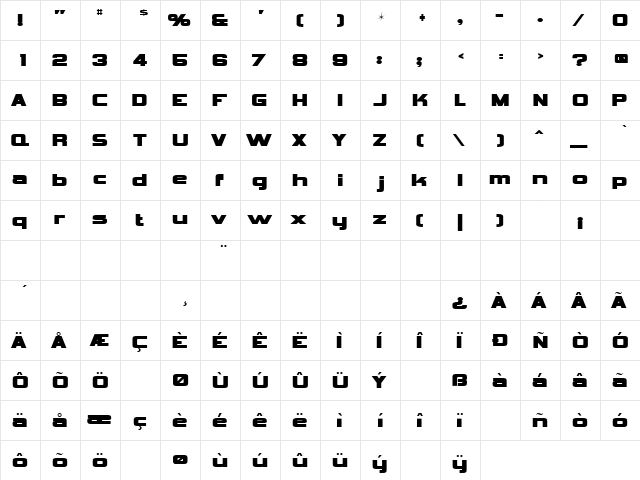
Vipnagorgialla Regular Font Preview
Vipnagorgialla Regular
Vipnagorgialla Regular Font Details
| Foundry | Larabie Fonts |
Design Context for Vipnagorgialla Typeface
Vipnagorgialla is a composed and adaptable typeface that performs quietly and consistently across a wide range of design contexts.